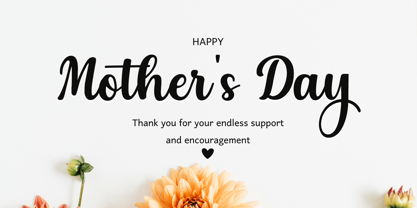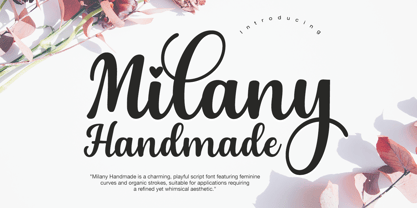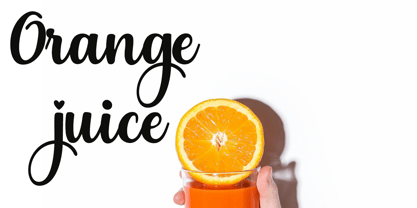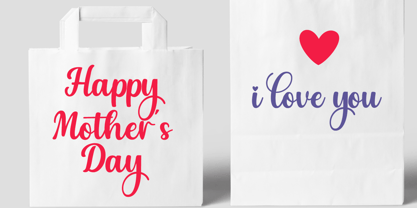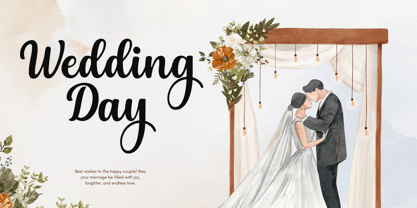
Milany Handmade
The Milany Handmade Font Family was designed by Muhammad Zaini and published by Cocodesign. Milany Handmade contains 1 styles. More about this family
"Milany Handmade is a charming, playful script font featuring feminine curves and organic strokes, suitable for applications requiring a refined yet whimsical aesthetic."